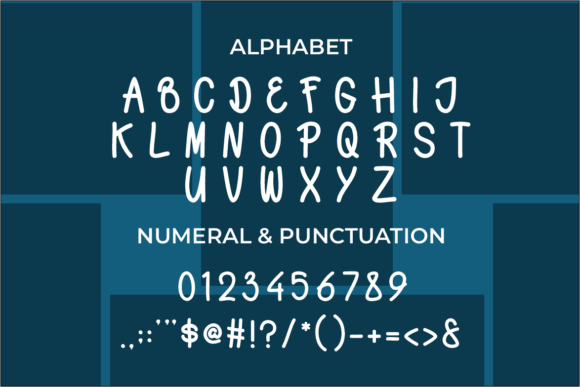
Foolshope Font: The Ultimate Casual and Friendly Handwritten Font for Designers and Crafters
Are you tired of using the same old fonts for your designs and crafts? Look no further! Introducing Foolshope Font, a casual and friendly handwritten font that’s perfect for a variety of projects. Whether you’re a designer, crafter, or simply someone who loves to make greeting cards, Foolshope Font is sure to become your new go-to font.
What is Foolshope Font?
Foolshope Font is a beautiful, handwritten font that’s designed to add a personal touch to your projects. Its casual and friendly vibe makes it perfect for a wide range of applications, from digital designs and presentations to crafts and greeting cards. With Foolshope Font, you can add a dash of personality to your work and make it stand out from the crowd.
Key Features of Foolshope Font
- Casual and Friendly: Foolshope Font has a relaxed, approachable feel that’s perfect for creating a sense of warmth and connection with your audience.
- Handwritten: This font is carefully crafted to mimic the look and feel of handwritten text, giving your projects a personal and human touch.
- Versatile: Whether you’re working on a digital design, presentation, craft project, or greeting card, Foolshope Font is the perfect choice.
- Easily Readable: Despite its casual nature, Foolshope Font is easy to read, making it perfect for body text and headings.
Uses for Foolshope Font
Foolshope Font is an incredibly versatile font that can be used for a wide range of projects, including:
- Digital Designs: Add a personal touch to your social media graphics, blog posts, and website designs with Foolshope Font.
- Presentations: Make your presentations more engaging and memorable with Foolshope Font.
- Crafts: Use Foolshope Font to add a personal touch to your craft projects, such as scrapbooking, card making, and DIY gifts.
- Greeting Cards: Create beautiful, heartfelt greeting cards with Foolshope Font.
Why Choose Foolshope Font?
With so many fonts to choose from, why should you choose Foolshope Font? Here are just a few reasons:
- Unique and Eye-Catching: Foolshope Font is a unique and eye-catching font that’s sure to make your projects stand out.
- Easily Customizable: Foolshope Font is easy to customize, allowing you to adjust the font size, color, and style to suit your needs.
- Time-Saving: With Foolshope Font, you can create beautiful, professional-looking projects in no time.
Tips for Using Foolshope Font
Here are a few tips for getting the most out of Foolshope Font:
- Experiment with Font Sizes: Try using Foolshope Font in different sizes to create visual interest and hierarchy.
- Combine with Other Fonts: Combine Foolshope Font with other fonts to create a unique and eye-catching look.
- Use for Headings and Body Text: Use Foolshope Font for both headings and body text to create a cohesive look.
In conclusion, Foolshope Font is a casual and friendly handwritten font that’s perfect for designers, crafters, and anyone looking to add a personal touch to their projects. With its versatility, readability, and unique vibe, Foolshope Font is sure to become your new go-to font. So why wait? Give Foolshope Font a try today and see the difference it can make in your designs and crafts!